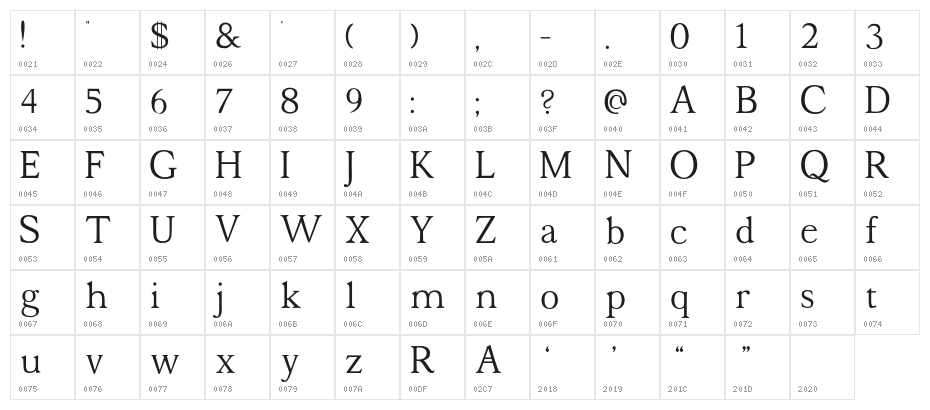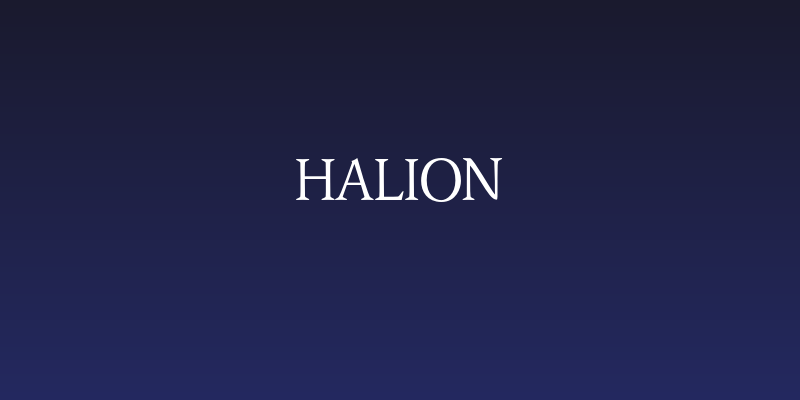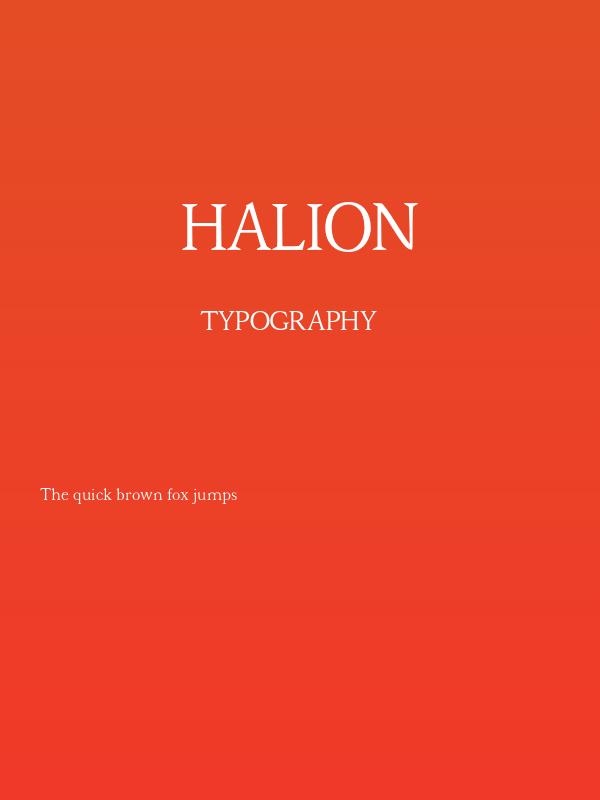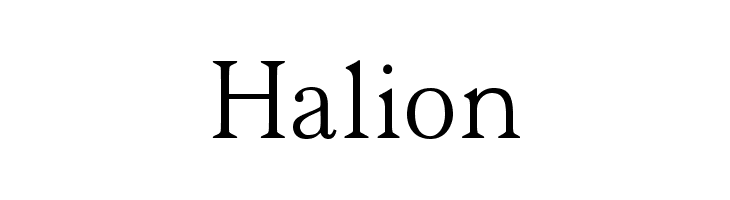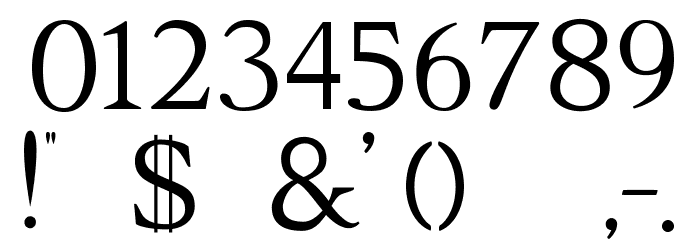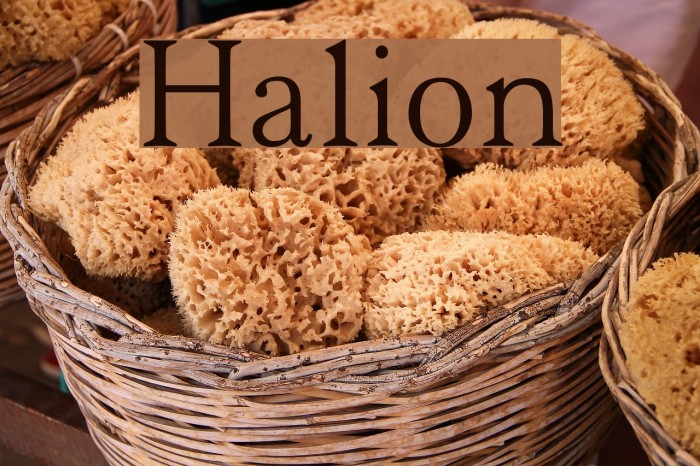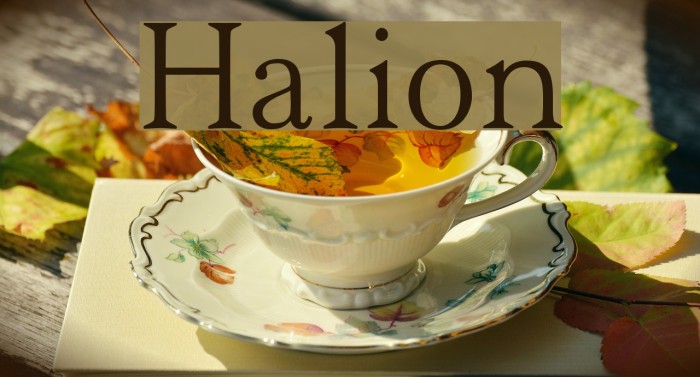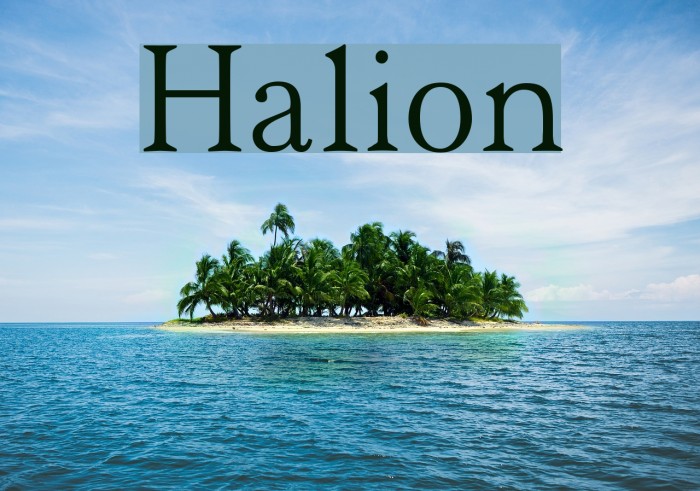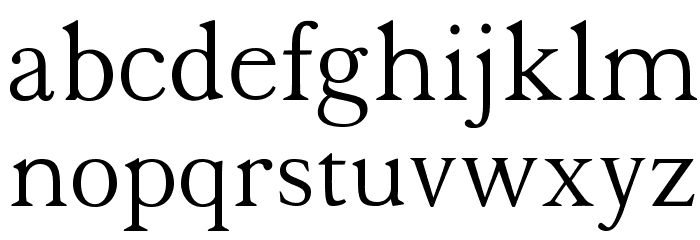
Halion Font
Halion Description
This font features a classic serif style with elegant and refined strokes. The uppercase letters are bold and commanding, while the lowercase letters maintain a graceful and balanced appearance. The numerals are clear and distinct, making them easily readable. Special characters are designed with a consistent style, adding to the overall cohesiveness of the font. The serifs are pronounced, contributing to a traditional and sophisticated look. The font's structure is well-suited for both digital and print media, offering versatility across various applications.
| Proposed Projects | Ideal for book covers, editorial design, formal invitations, and branding projects that require a touch of elegance. |